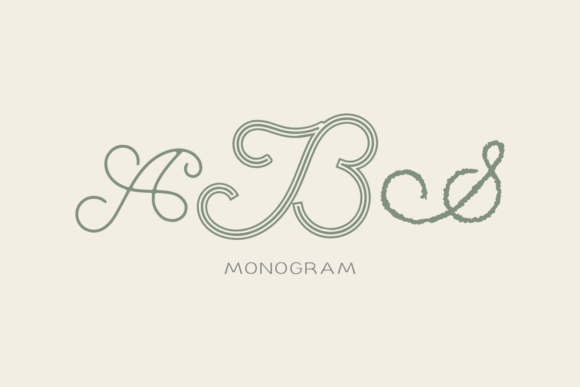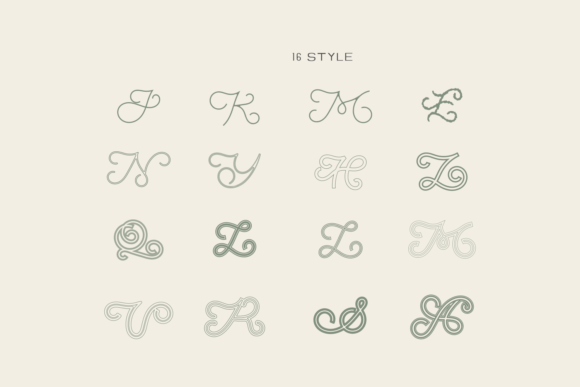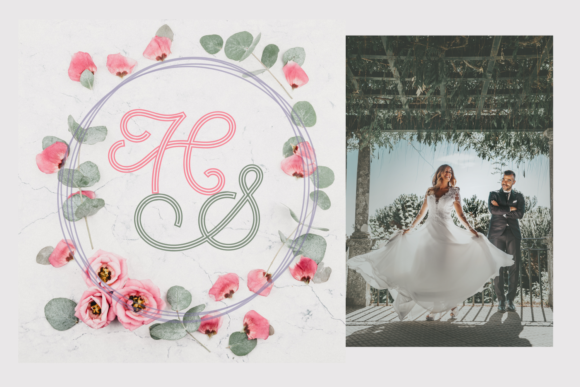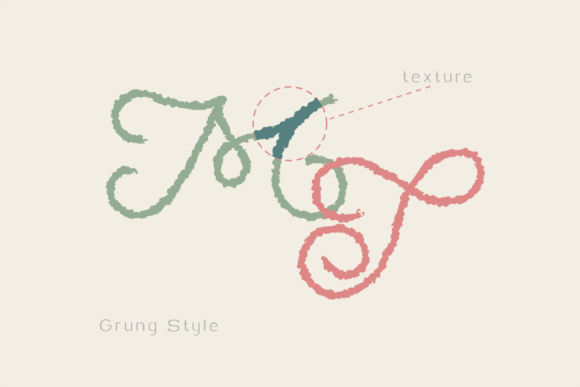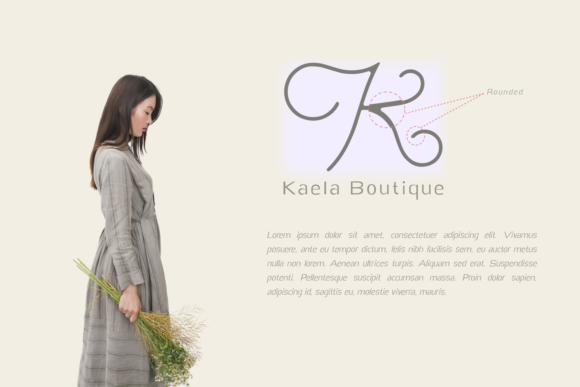
About ABS Monogram Font
ABS Monogram is a font that exudes elegance and authenticity. Its handwritten style adds a personal and unique touch to your designs, making it perfect for a wide range of projects. Whether you’re creating exquisite wedding invitations, crafting beautiful stationery art, designing eye-catching social media posts, or crafting cute greeting cards, ABS Monogram has the versatility to elevate each of these creations.
The font’s genuine and authentic feel captures attention and evokes a sense of sophistication. Its elegant strokes and carefully crafted characters make it a standout choice for projects that require a touch of class and charm. The fluidity of ABS Monogram’s design allows it to seamlessly integrate into various design contexts, adding a touch of luxury to every piece you create.
ABS Monogram’s versatility shines through in its ability to adapt to different design needs. Its elegant appearance makes it ideal for formal occasions such as weddings and events, while its handwritten charm adds warmth and personality to more casual projects. The font’s authentic feel resonates with audiences and conveys a sense of care and thoughtfulness in your designs.
Whether you’re a professional designer or a DIY enthusiast, ABS Monogram offers a wealth of creative possibilities. Its timeless elegance and genuine aesthetic create a lasting impact, allowing you to craft stunning visuals that leave a memorable impression on your audience.